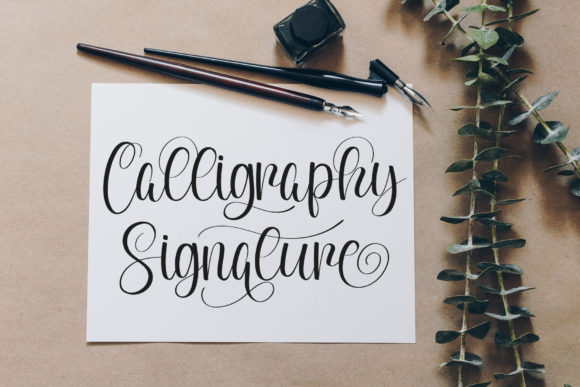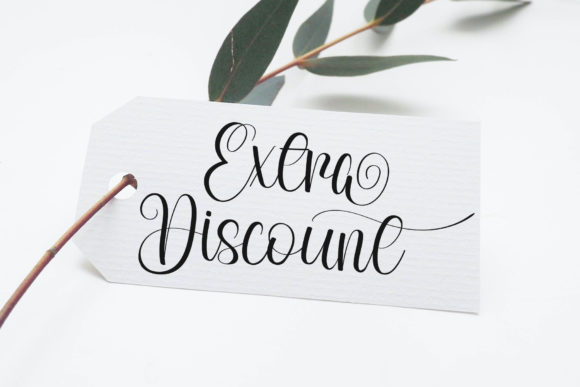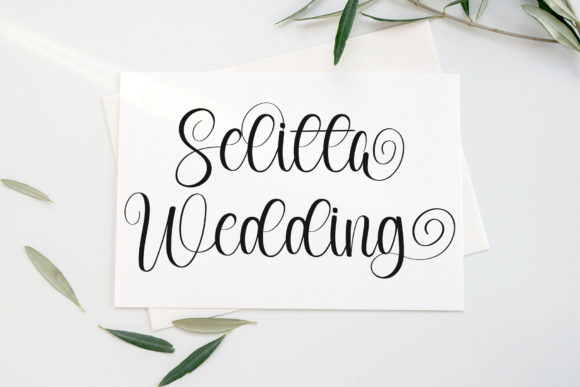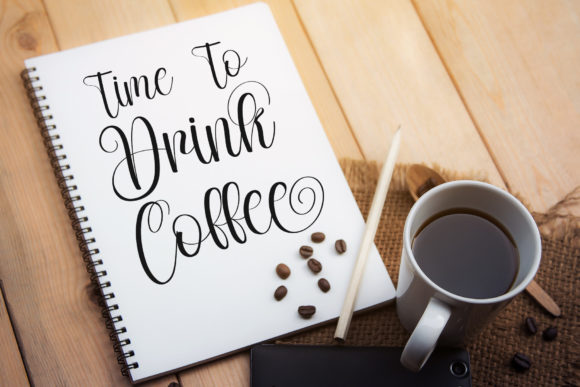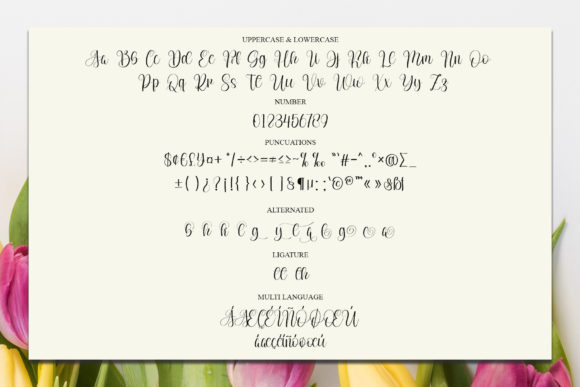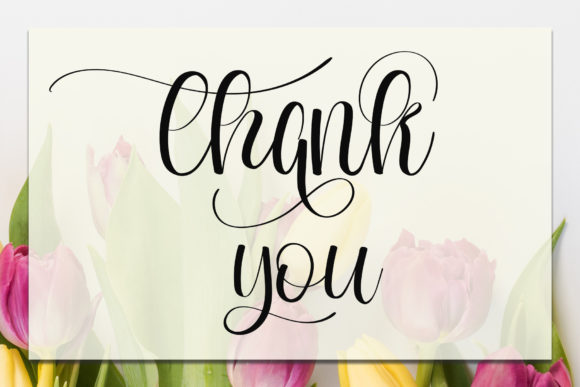
Unlock the Magic of Beautiful Design
Have you ever stared at a blank page, waiting for the perfect idea to strike? Maybe you’re a designer, an artist, or a writer, and you’re searching for that special something to make your project truly shine. It’s in these moments of creative frustration that we often find our greatest inspirations.
For designers, the right font can be the key to unlocking a beautiful design. That’s why we’re excited to introduce you to the Beautiful Font – a romantic and sweet calligraphy typeface that will add a luxury spark to any project you take on. With its elegant characters dancing along the baseline, Beautiful Font is the perfect choice for designers who want to create something truly special.
Beautiful Font Key Features
- Font Family: Beautiful Font offers a wide range of font styles, including serif, sans-serif, script, and display fonts, with over 1000 glyphs to choose from.
- Unique Characteristics: Beautiful Font features a unique blend of elegance and sophistication, with subtle nuances in letterforms and ligatures that add a touch of personality to any design.
Beautiful Font Review
Overall, I’d say the Beautiful Font is a great addition to any design project. It’s a versatile and elegant font that can be used for a variety of purposes, from headlines to body text.
- The font’s high legibility makes it perfect for long blocks of text.
- The elegant curves and lines give it a sophisticated look that’s perfect for luxury brands or high-end designs.
- The font is highly customizable, with a wide range of weights and styles available.
- The font may not be suitable for digital screens, as it can appear blurry or pixelated at certain resolutions.
- The font’s elegance may make it seem overly formal or stuffy in certain contexts, such as informal blog posts or social media updates.
- The font’s high customization options can also make it overwhelming to choose the right style and weight for a particular design project.
Overall, I’d say the Beautiful Font is a great choice for designers who want to add a touch of elegance and sophistication to their projects. While it may have some limitations, its versatility and high legibility make it a solid addition to any design library.
Tips for Getting the Most Out of Beautiful Font
For optimal results, use Beautiful Font in combination with other design elements to create a visually appealing design. Experiment with different font sizes, colors, and styles to achieve the desired look.
Beautiful Font is ideal for use in branding materials, such as business cards, logos, and letterheads. It is also suitable for use in digital marketing materials, such as social media posts and email newsletters.